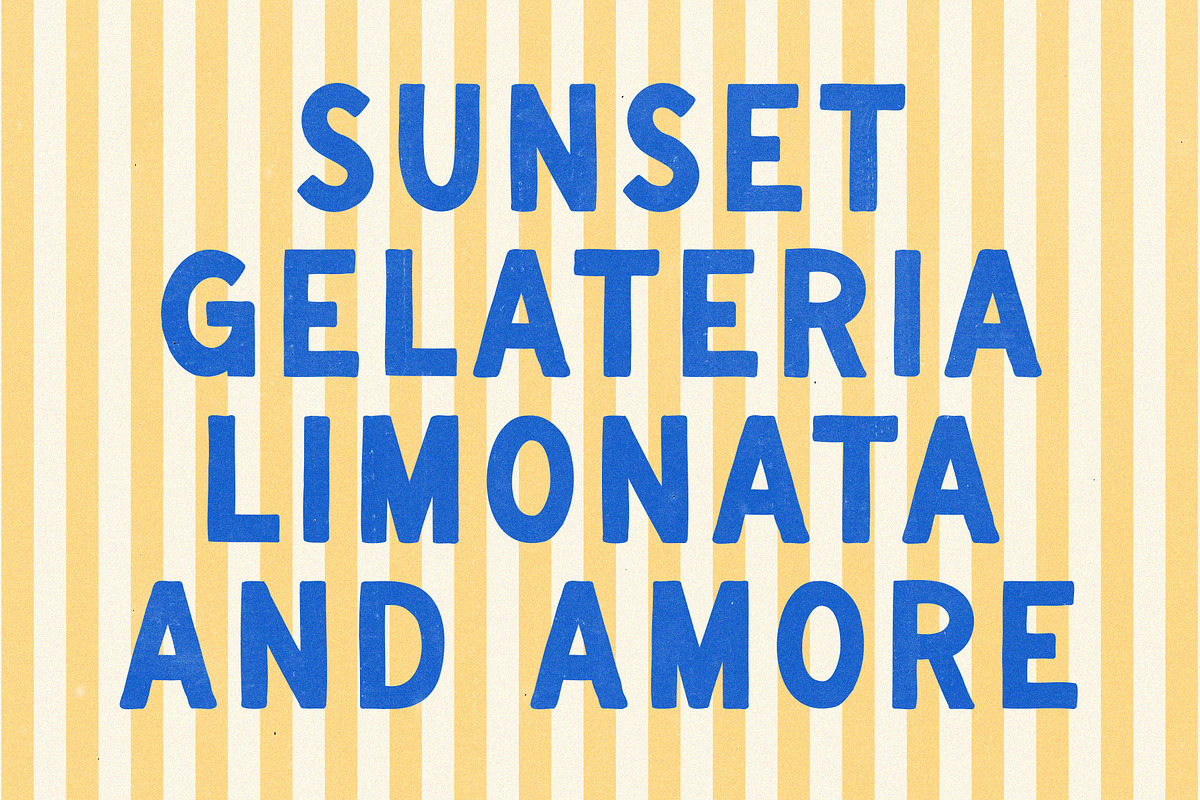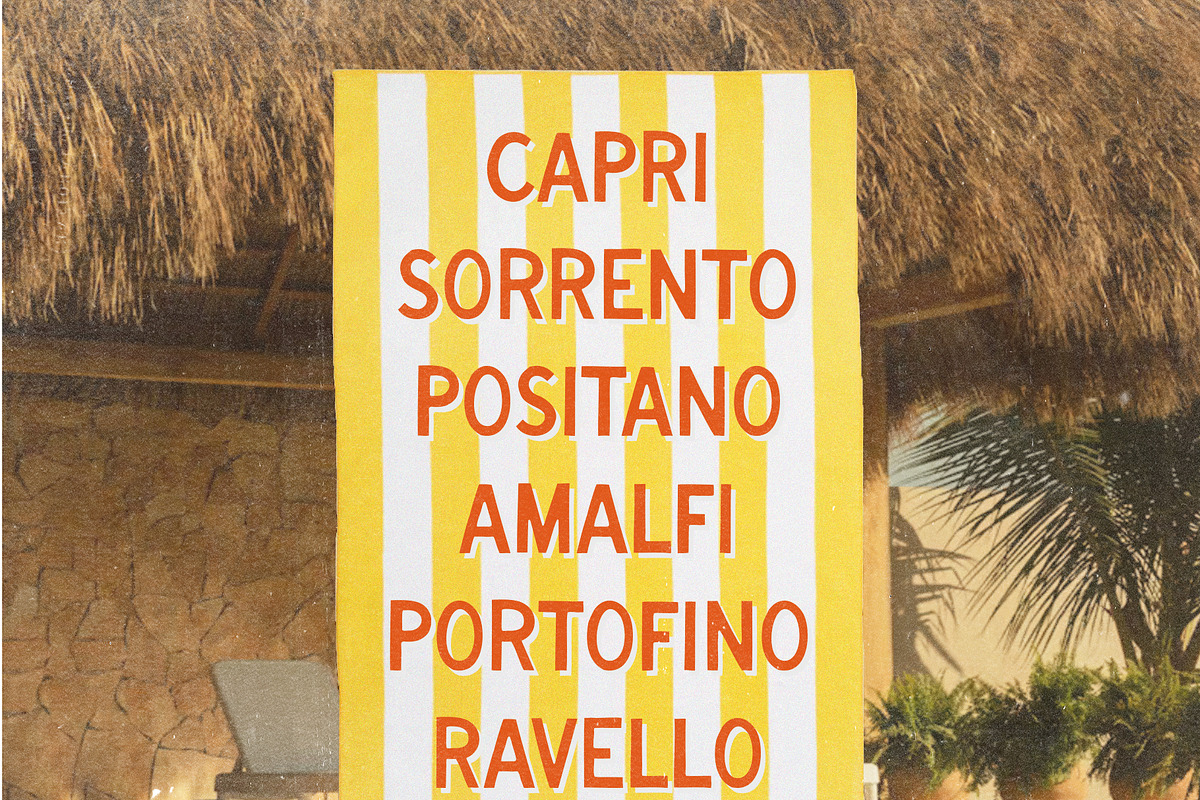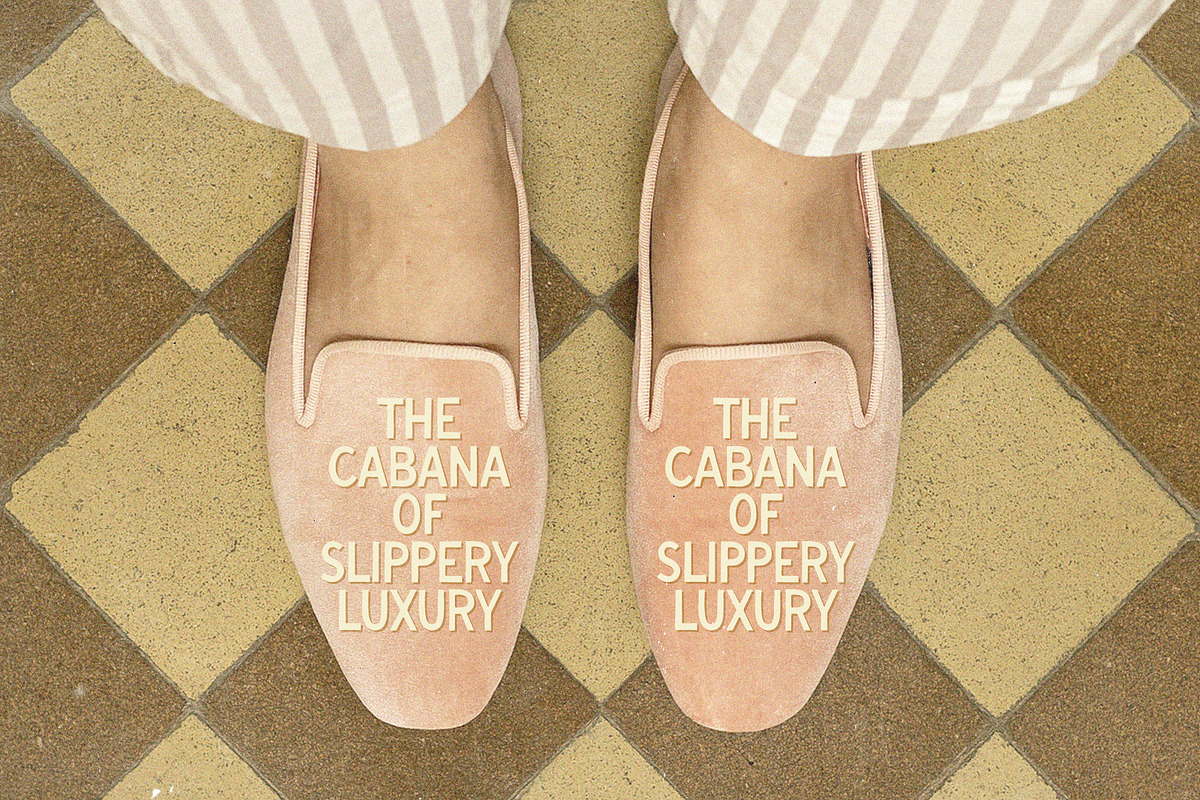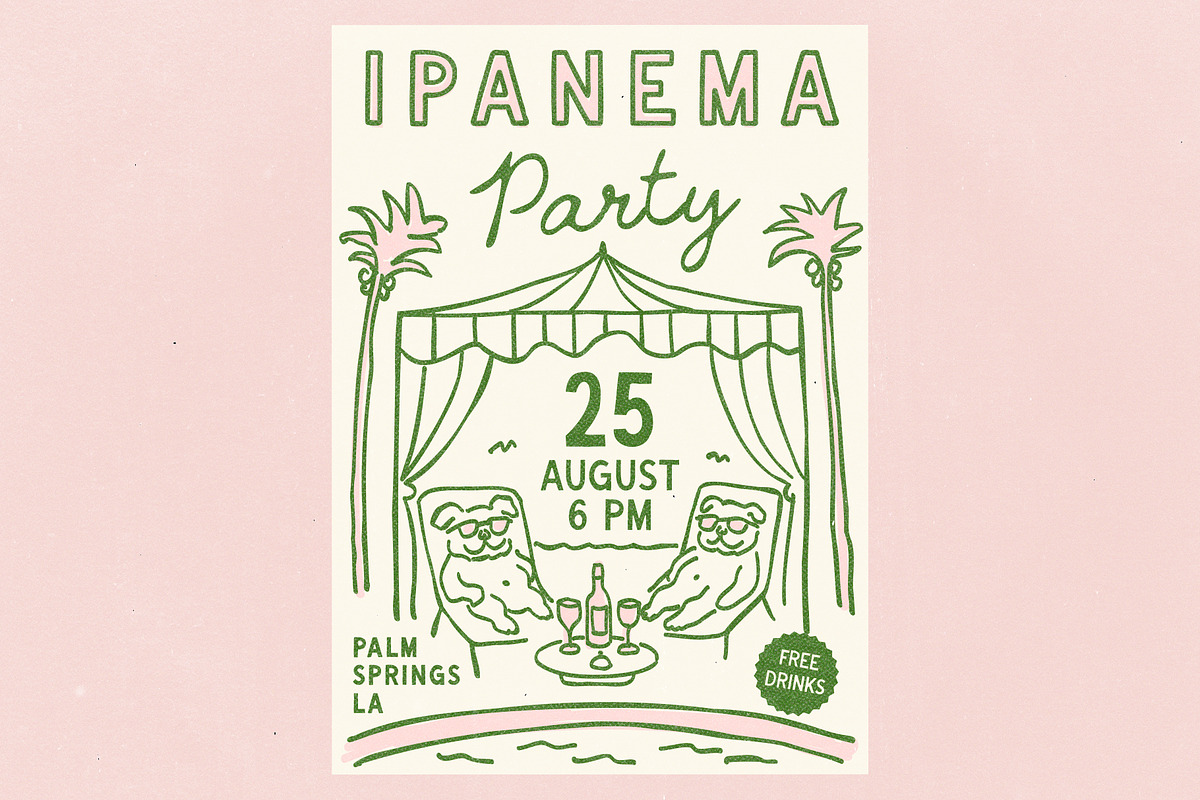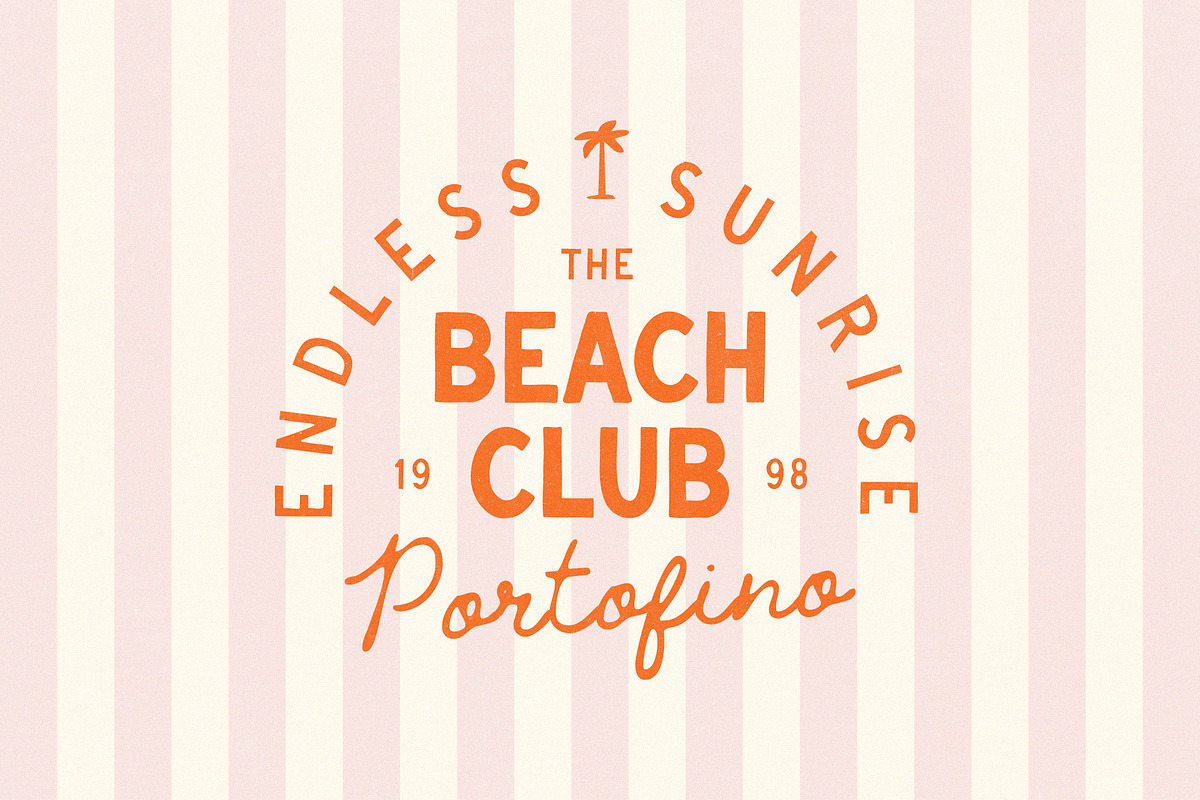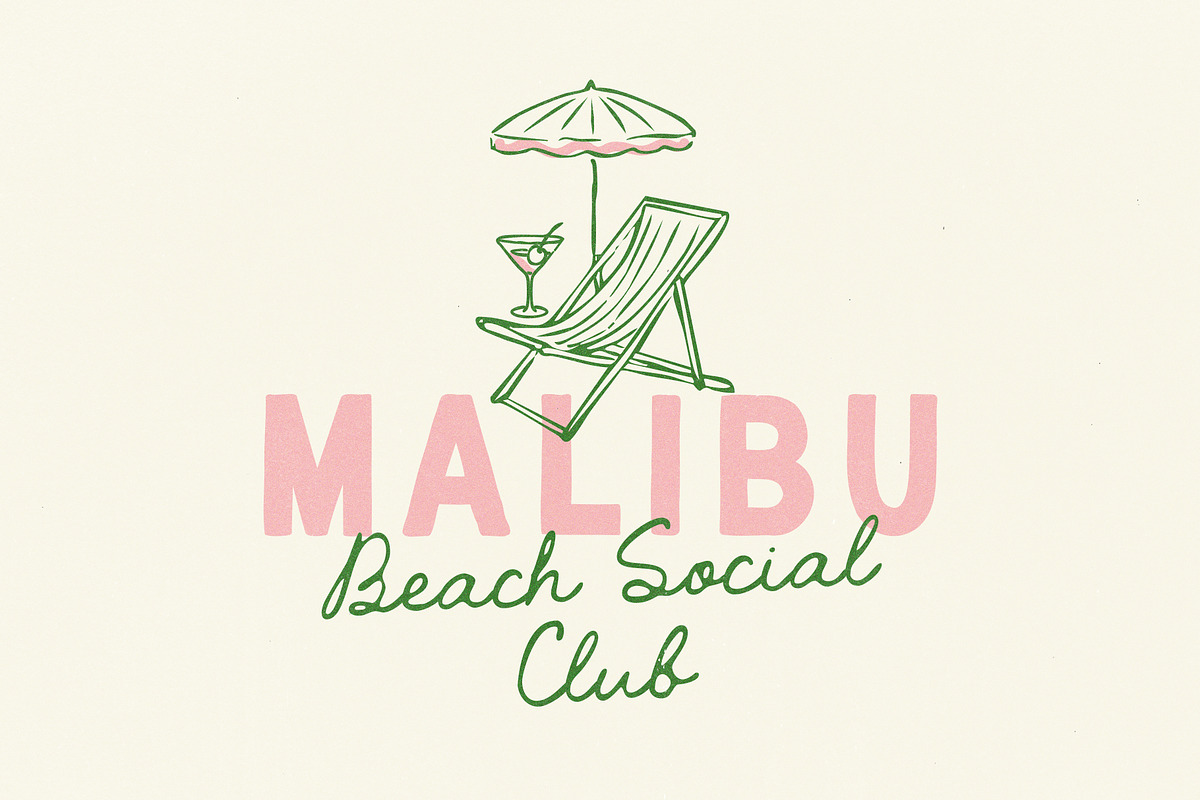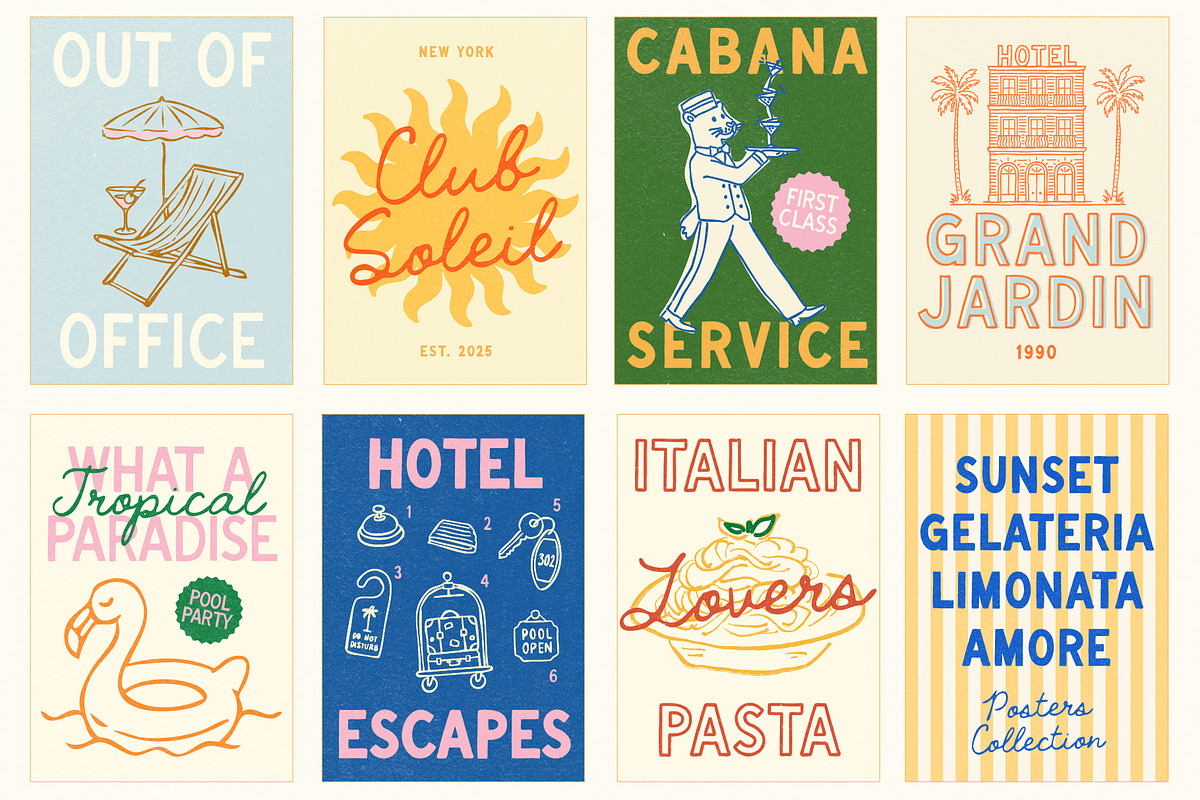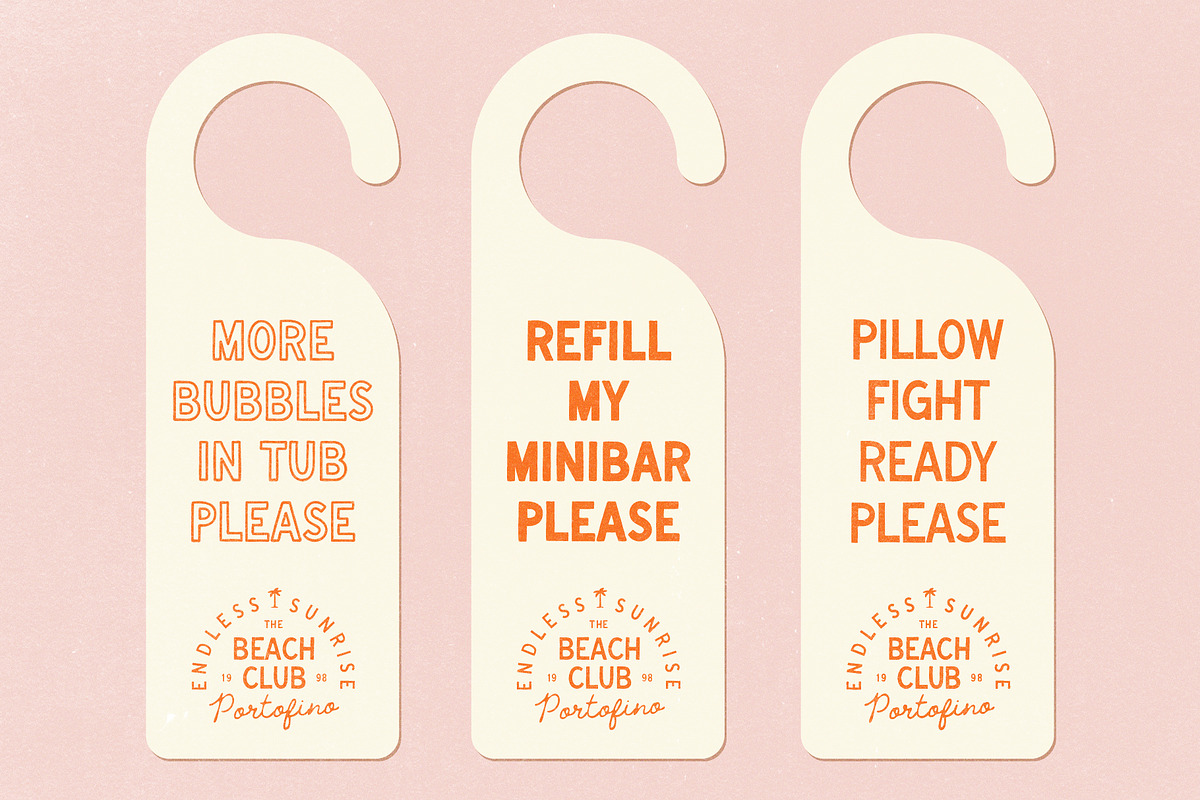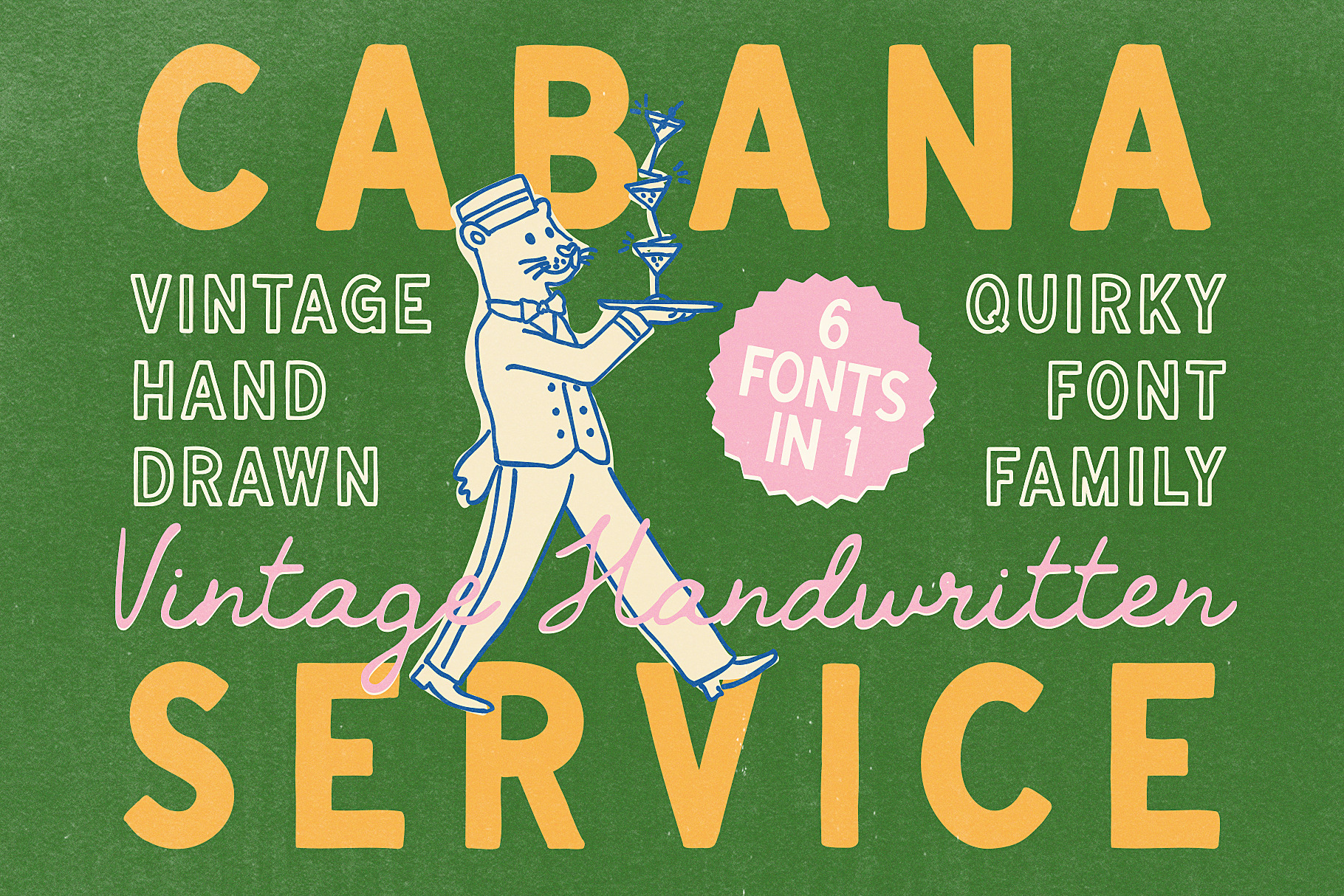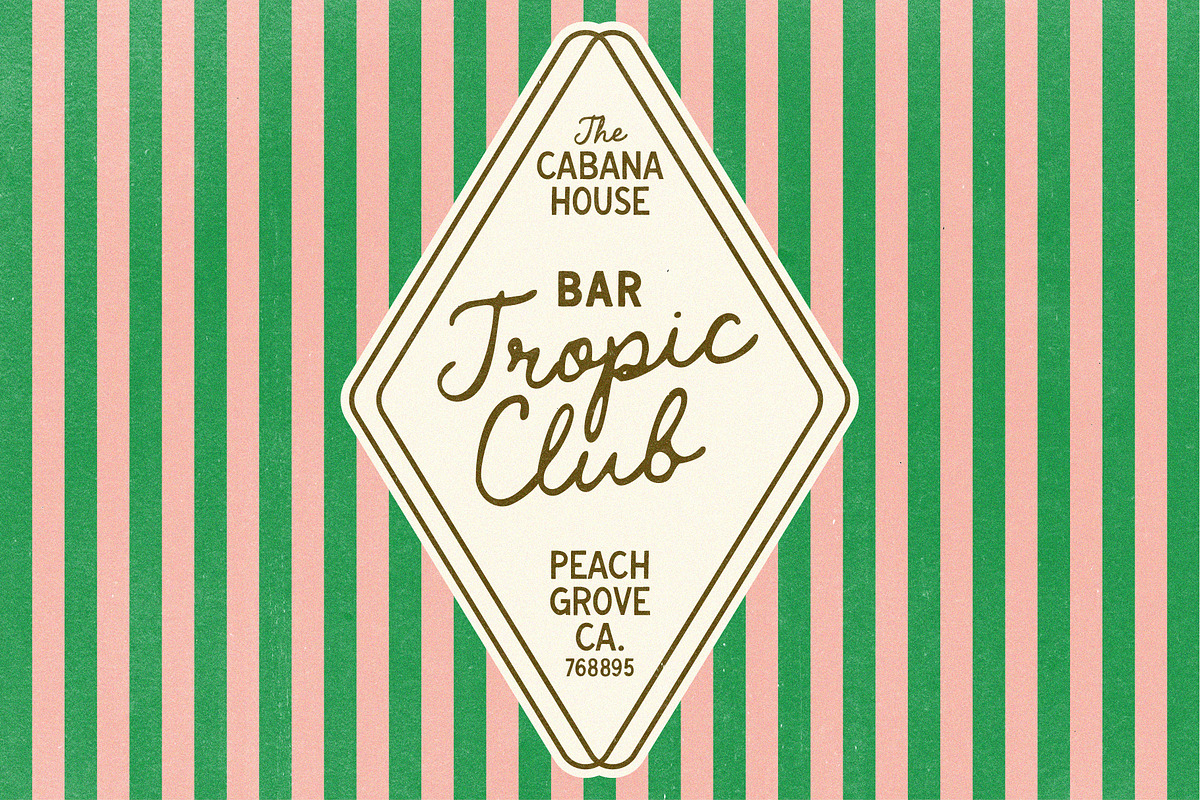
Handwritten Resort Vintage Font Pack
Welcome to the Cabana Service 🏝 — a hand-drawn font family with a soft, imperfect style that feels like a slow morning at a beach hotel. It’s a little playful, a little nostalgic, and has that relaxed confidence of somewhere warm and quiet — maybe Palm Springs, maybe the Amalfi coast. 🍋
Every letter is drawn by hand — no polished edges, no perfect lines — just a natural, easy rhythm. The kind of font that feels personal but still works beautifully in branding, menus, packaging, posters, and quotes.
There’s a vintage touch in it, but not in a loud way. Think old hotel signs, striped towels, café receipts, sun-faded postcards. Something you’d find in a travel journal or on the wall of a small island boutique.
In the previews, you’ll find examples of how it can be used — logos, summer club posters, quotes, branding, packaging, YouTube vlog thumbnails, menus — all built around this same feeling of warmth, escape, and understated charm.
It’s not just for summer. This is a font you can return to year-round, anytime you want that soft, sunlit energy. 🌞